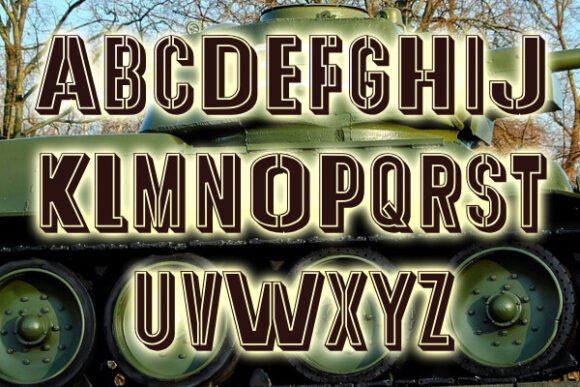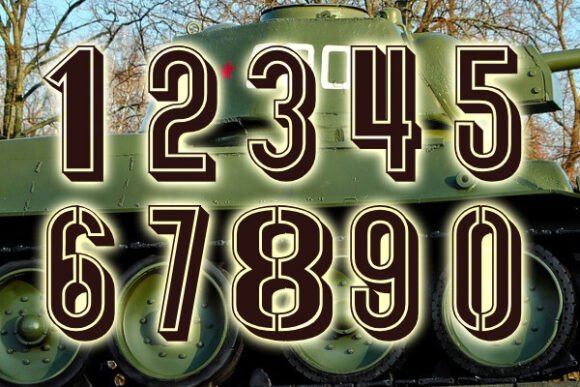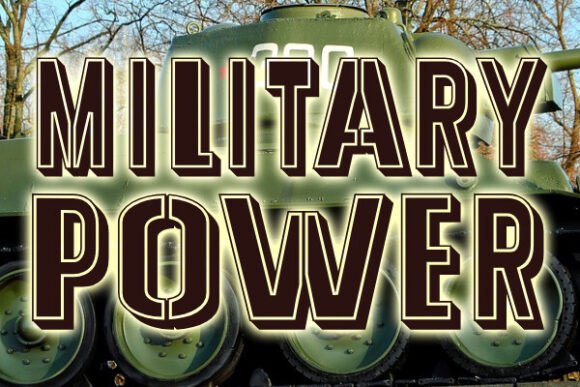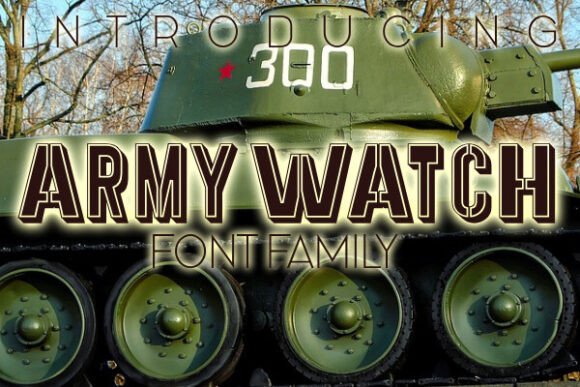
Army Watch Font: The Ultimate Military Typeface for Designers
Are you a designer looking for a font that exudes strength, courage, and a sense of adventure? Look no further than the Army Watch font. This military-inspired typeface is perfect for creating bold and eye-catching designs that will leave a lasting impression. In this article, we’ll explore the features and benefits of the Army Watch font, and show you how to use it to take your designs to the next level.
What is Army Watch Font?
Army Watch font is a military-style typeface that is inspired by the iconic watches worn by soldiers. The font features bold, rugged lines and a distinctive character set that is reminiscent of military typography. With its strong and sturdy design, Army Watch font is perfect for creating designs that require a sense of power and authority.
Key Features of Army Watch Font
- Bold and rugged design: Army Watch font features bold, rugged lines that give it a strong and sturdy appearance.
- Military-inspired character set: The font includes a distinctive character set that is inspired by military typography.
- High-quality design: Army Watch font is designed to high standards, ensuring that it looks great in any design.
- Easily readable: Despite its bold design, Army Watch font is easily readable, making it perfect for use on posters, flyers, and other materials.
How to Use Army Watch Font
Army Watch font is incredibly versatile and can be used in a wide range of designs. Here are some ideas to get you started:
- Posters: Use Army Watch font to create bold and eye-catching posters for events, promotions, or advertising campaigns.
- Flyers: Add a touch of military style to your flyers with Army Watch font.
- T-shirts: Create bold and stylish t-shirt designs with Army Watch font.
- Logos and branding: Use Army Watch font to create logos and branding materials that exude strength and authority.
Benefits of Using Army Watch Font
There are many benefits to using Army Watch font in your designs. Here are just a few:
- Instant recognition: Army Watch font is instantly recognizable as a military-style typeface, making it perfect for designs that require a sense of strength and authority.
- High-impact designs: The bold and rugged design of Army Watch font makes it perfect for creating high-impact designs that grab attention.
- Easy to read: Despite its bold design, Army Watch font is easily readable, making it perfect for use on a wide range of materials.
- Versatile: Army Watch font can be used in a wide range of designs, from posters and flyers to logos and branding materials.
Tips for Using Army Watch Font
Here are some tips for getting the most out of Army Watch font:
- Use it sparingly: Army Watch font is bold and attention-grabbing, so use it sparingly to avoid overwhelming your design.
- Combine with other fonts: Army Watch font looks great when combined with other fonts, so don’t be afraid to experiment with different font combinations.
- Experiment with colors: Army Watch font looks great in a range of colors, so experiment with different colors to find the one that works best for your design.
Army Watch font is an awesome military typeface that will make your designs look cool. With its bold and rugged design, military-inspired character set, and high-quality design, it’s perfect for creating bold and eye-catching designs that will leave a lasting impression. Whether you’re a designer, craft, or DIY enthusiast, Army Watch font is a great addition to your design toolkit.